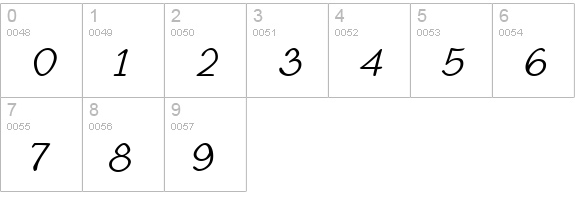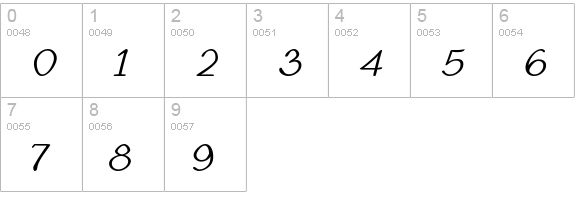
KampIngrianaH Italic Font Details
KampIngrianaH Italic is a distinctive, italic variant in the KampIngrianaH typeface family \xE2\x80\x94 well suited to design and typography projects.
KampIngrianaH Italic is a marvelously designed font that effortlessly combines elegance and playfulness. With its sleek and slanted letterforms, this typeface exudes a sense of modernity while maintaining a touch of sophistication. The italicized style adds a dynamic and stylish flair to any design project, making it perfect for headlines, invitations, logos, and more. This font's versatility knows no bounds, as it effortlessly adapts to various design themes and aesthetics. Whether you're aiming for a contemporary and sleek look or a more whimsical and artistic feel, KampIngrianaH Italic has got you covered. What makes this font even more appealing is the fact that it is freely available to download at FontsMarket.com. Now you can enhance your designs with this exquisite typeface without any hassle or extra cost. It's a true gem for designers, creatives, and typography enthusiasts alike. With KampIngrianaH Italic, you'll have access to a vast array of expressive possibilities. Its unique letterforms and attention to detail ensure that your designs will stand out and leave a lasting impression. So don't miss out on this incredible opportunity to elevate your creative projects with this exceptional font. Download KampIngrianaH Italic today and let your imagination soar!